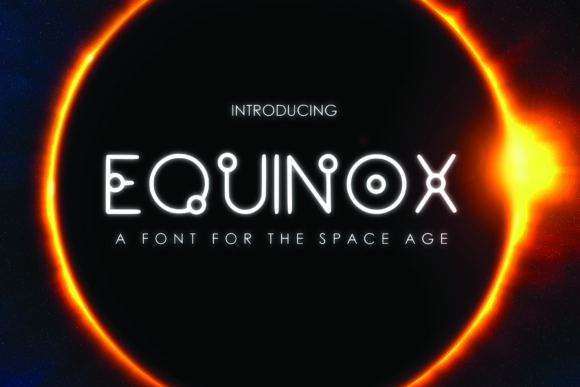
Step into a universe of captivating design possibilities with Equinox Font, a futuristic display font that sets your imagination free. Discover a world where creativity knows no bounds, where every letter is a portal to a realm of endless possibilities.
Equinox Font is not just a font; it's an artistic odyssey that transports you to a realm of innovation and intrigue. With its meticulously crafted characters, Equinox Font redefines the boundaries of visual expression, empowering you to create designs that resonate with your audience.
At the heart of Equinox Font lies a fusion of modernity and mystique. Its sharp, clean lines evoke a sense of sleek sophistication, while its subtle curves hint at a hidden depth of creativity. Each letter is a masterpiece of digital artistry, designed to captivate and inspire, to ignite your imagination and unlock your true creative potential.
With Equinox Font, you'll embark on a journey of limitless self-expression. Whether you're a seasoned graphic designer seeking to elevate your work or an aspiring artist eager to leave your mark on the world, Equinox Font is your gateway to greatness.
Unleash the power of Equinox Font and watch your designs transform before your eyes. Craft logos that command attention, create posters that ignite imaginations, or weave typographic tapestries that transport your audience to realms unknown. The possibilities are as boundless as your creativity.
But don't just take our word for it. Join the legion of satisfied designers who have already discovered the magic of Equinox Font. Witness how their designs have been propelled to new heights, their creative visions brought to life with unparalleled brilliance.
Step into the future of design with Equinox Font. Embrace the power of innovation and creativity, and let your imagination soar to new horizons. Download Equinox Font today and unleash the boundless possibilities that await you.